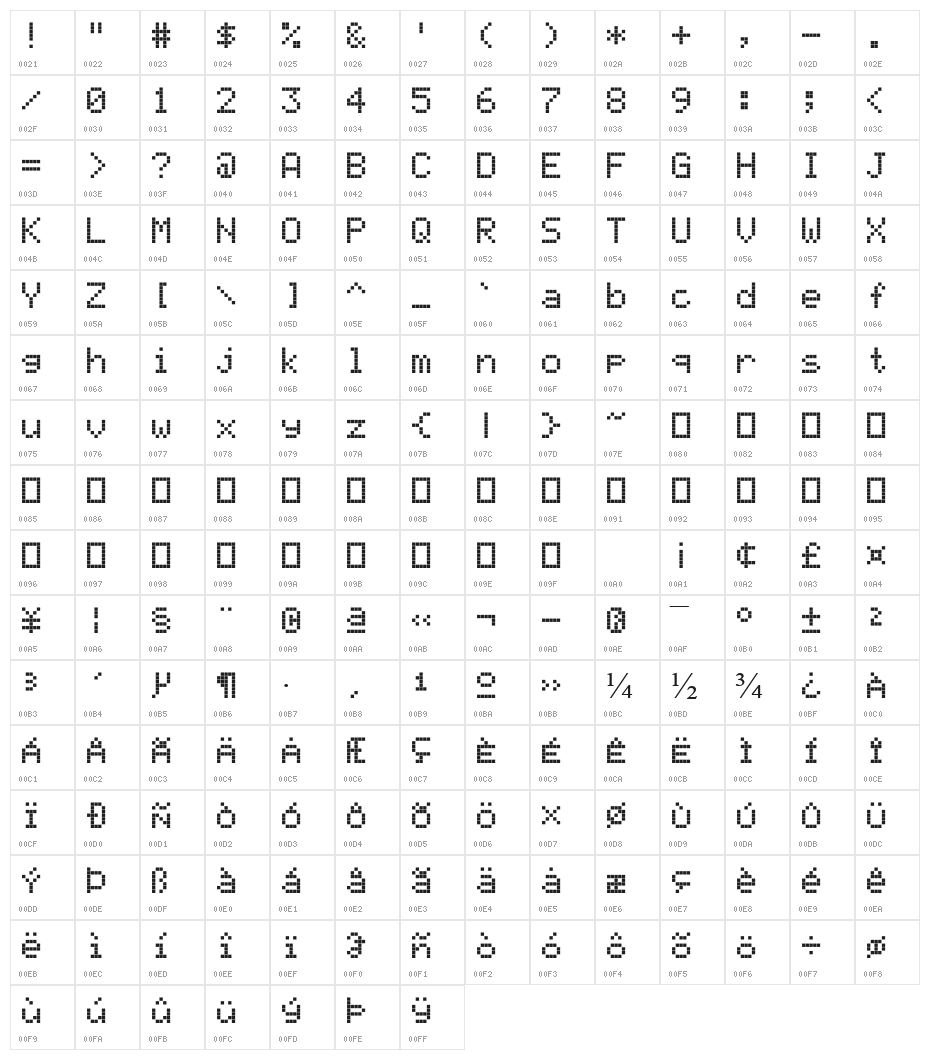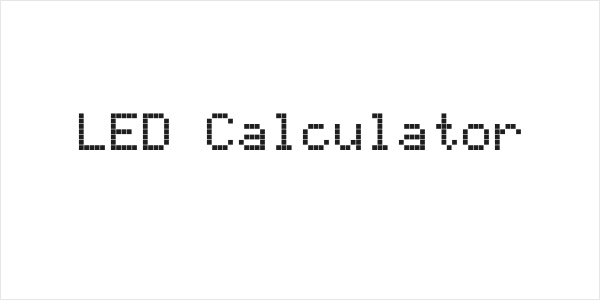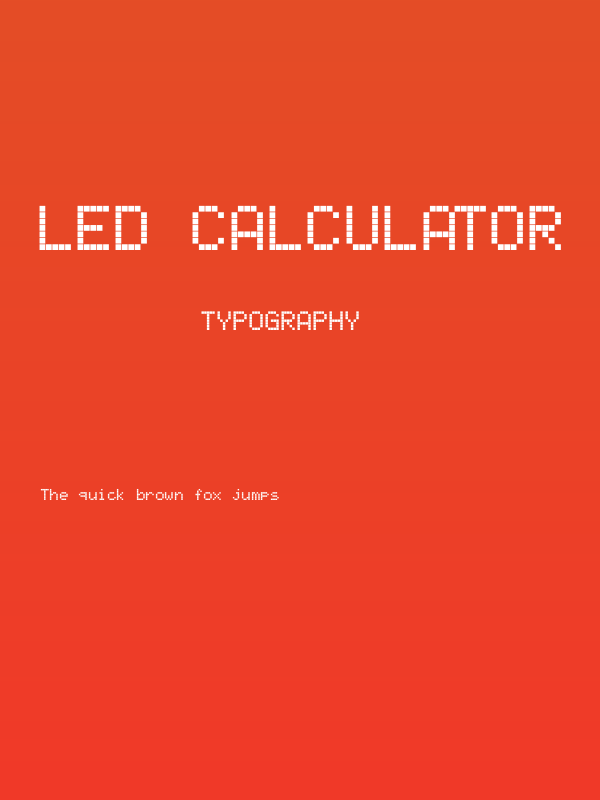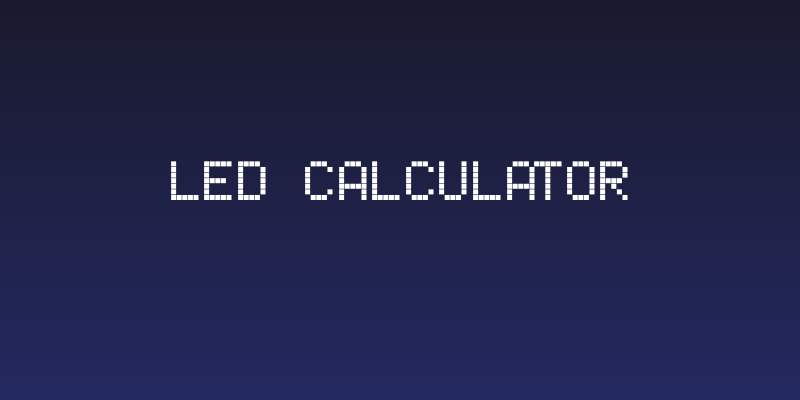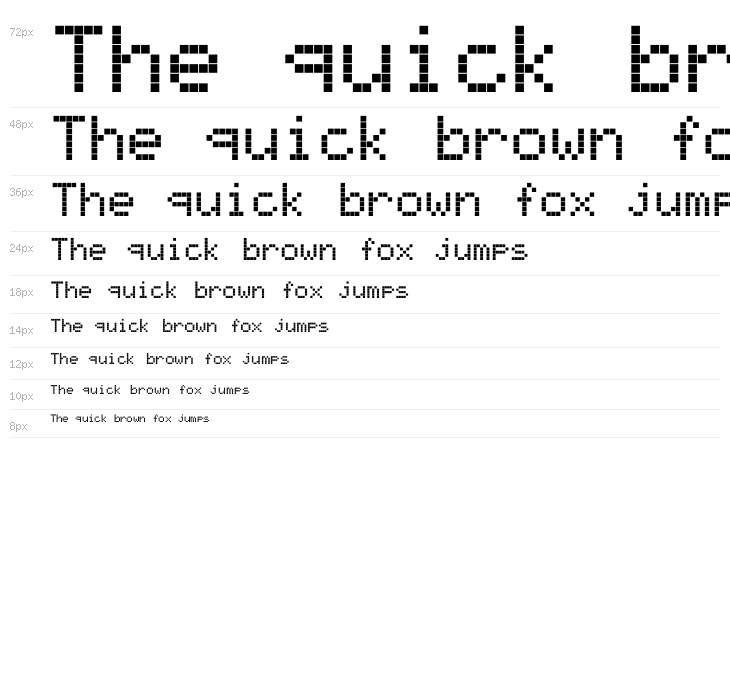
LED Calculator Font
LED Calculator Description
This font is characterized by its pixelated, grid-like appearance, reminiscent of digital displays and LED screens. Each character is constructed from a series of small, square blocks, creating a distinctly retro and technological aesthetic. The uppercase and lowercase letters, as well as numbers and special characters, maintain a consistent blocky style, emphasizing uniformity and clarity. This design evokes a sense of nostalgia for early digital technology, making it ideal for projects that aim to capture a vintage digital feel.
| Overall Style | Retro, Technological |
| Use Case | Logos, Headlines, Digital interfaces |
| Proposed Projects | Ideal for retro-themed designs, digital art projects, video game interfaces, and tech-related branding. |